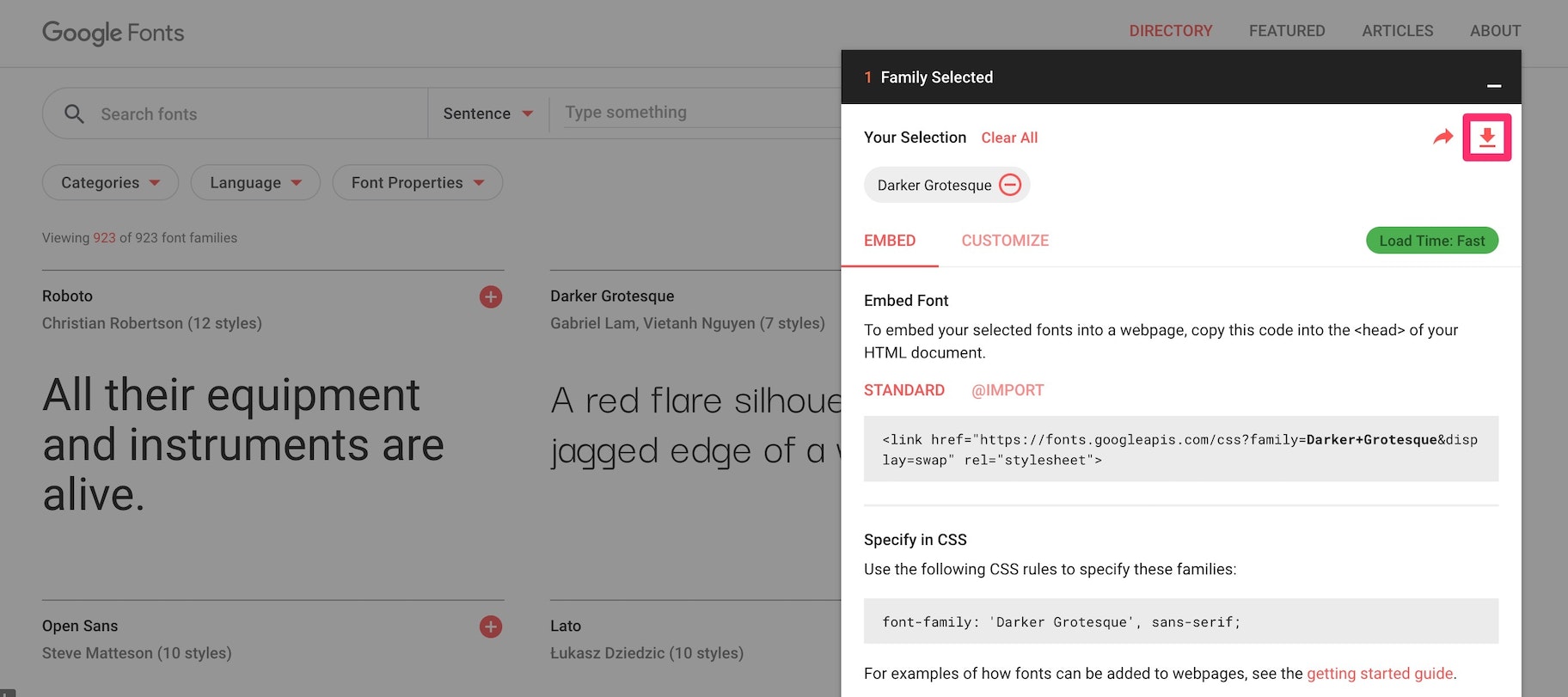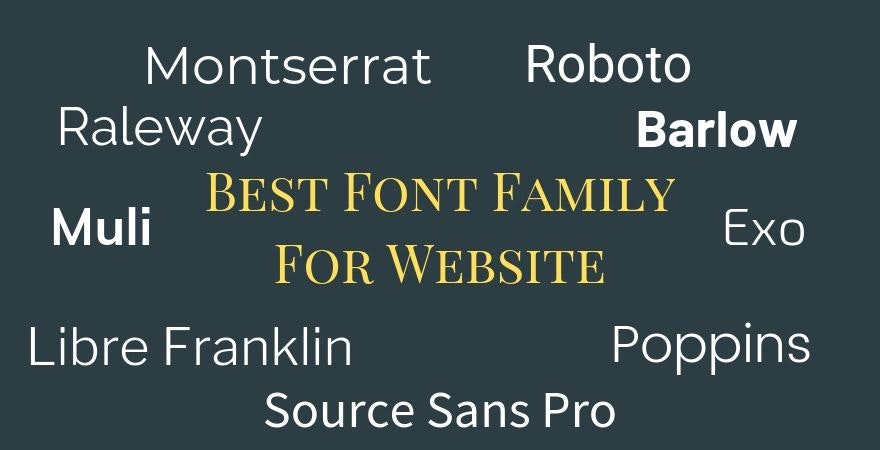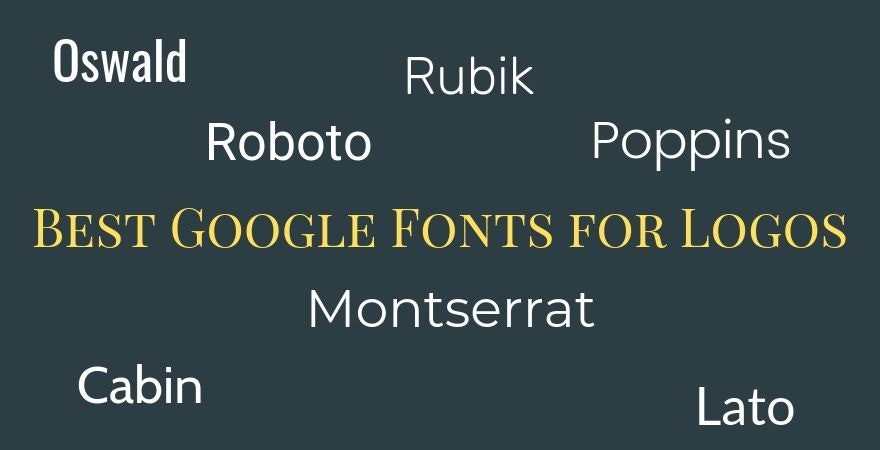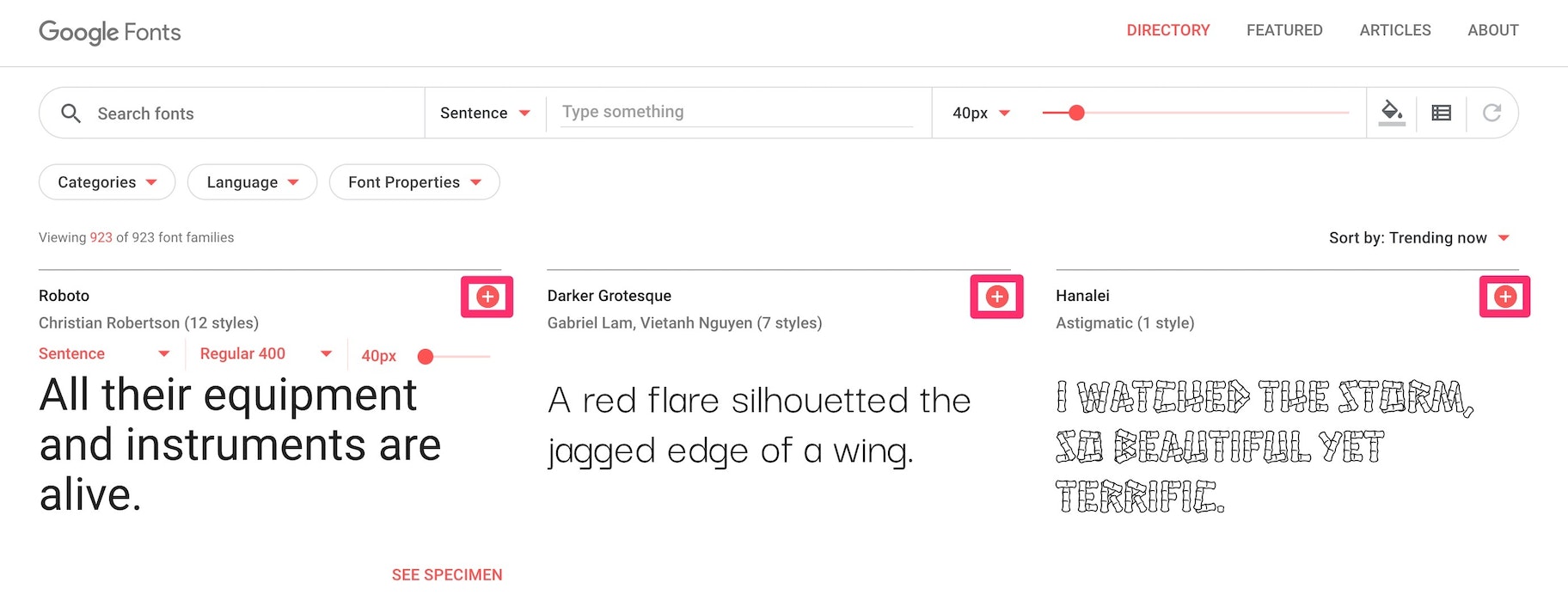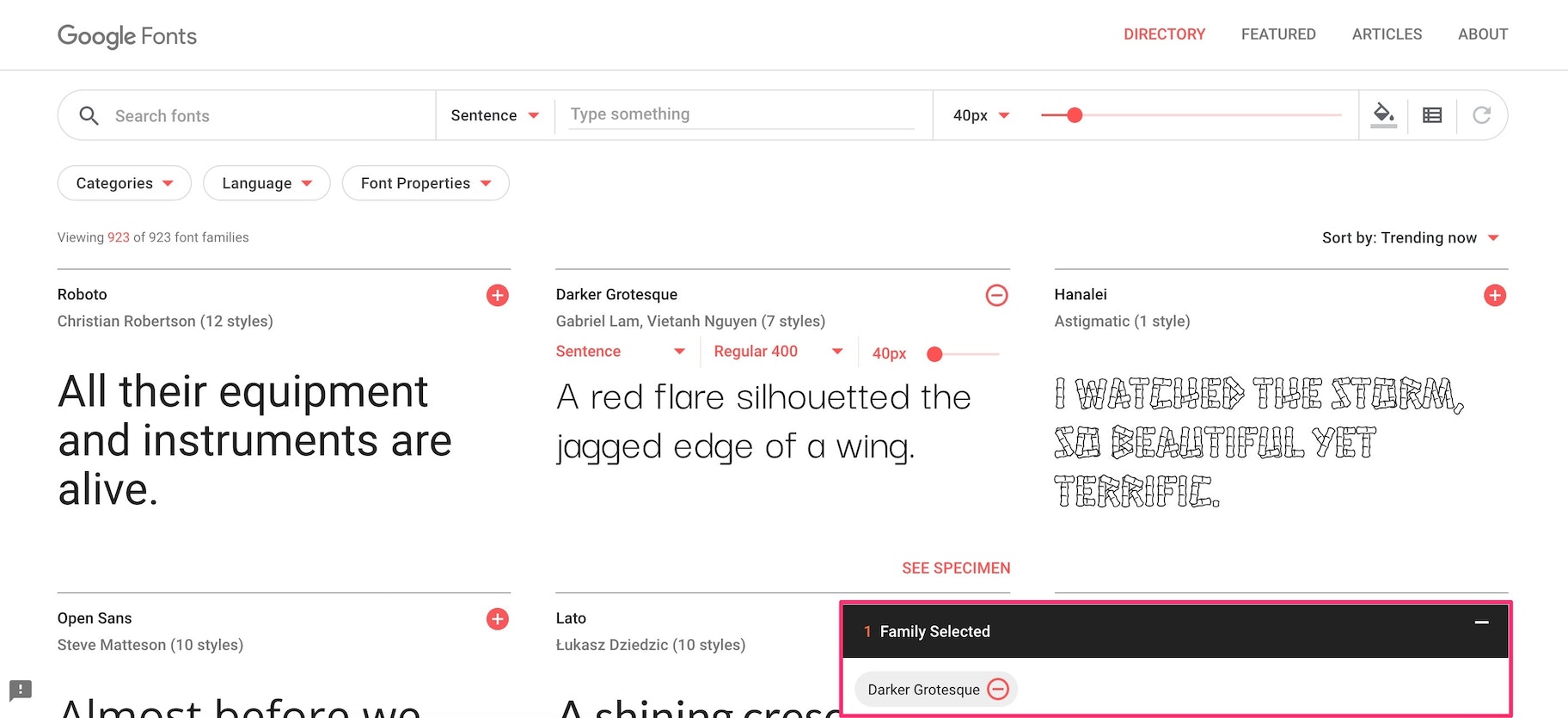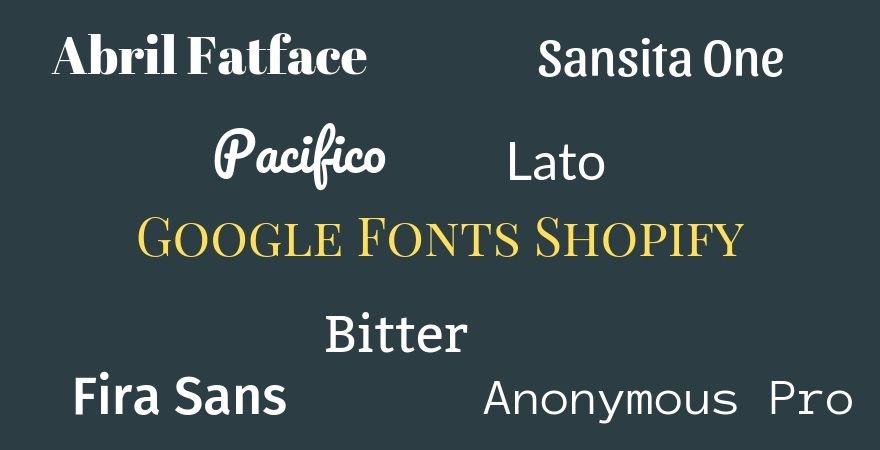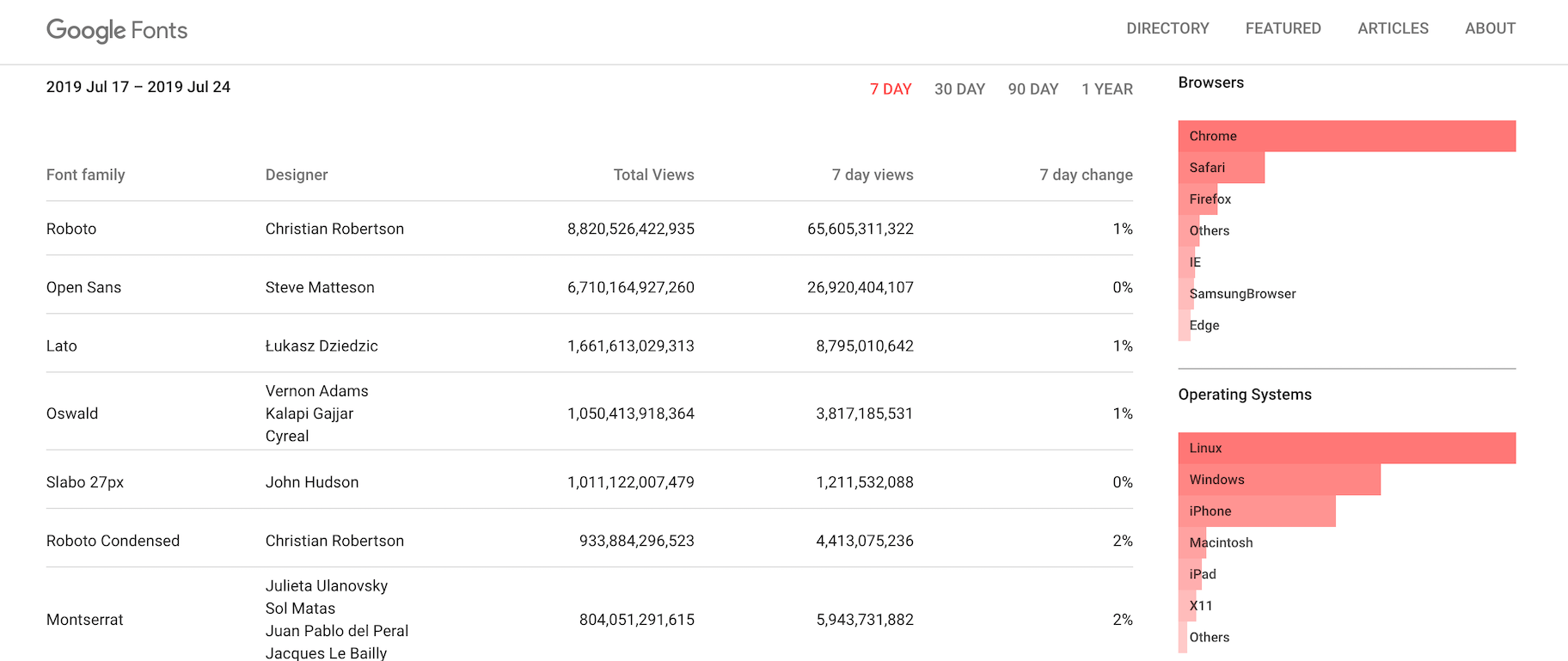
Google Fonts are one of the most popular typeface fonts you’ll find online. If you’re currently running an online Shopify store you’ll know that you’re using Google Fonts on your website. Google web fonts are often the standard fonts examples used by popular brands like Canva. Whether you’re looking for the best Google font combinations or need help finding handwriting Google Fonts, this article breaks down the best web fonts you can use for your website or design work.
What are Google Fonts?
Google Fonts are a typography library created by Google with over 1,500 licensed fonts that can be used for business or personal purposes for free. They can be used on your website, on design work, for a school assignment, on products, and more.
How to Choose Google Fonts
Several factors can help you decide on which Google Font to choose. When it comes to choosing a web font to use, you should consider readability, purpose, Google font combinations, popularity, and intuition. Here are a few ideas to help you better understand which fonts you should use in different situations:
1. Readability
If you’re composing a book, blog content, or anything text-heavy you should consider choosing a serif font. A serif font is one where it appears like the letters have “feet.” These feet connect the letters closer together which helps make them easier to read. If you look at sans serif fonts, they don’t have these feet-like extensions, which makes it slightly more difficult to read longer passages.
2. Purpose
When it comes to choosing a font, it can boil down to the purpose it’s being used for. For example, you might use Google Fonts handwriting font when it comes to wedding invitations as it’s customary to use cursive fonts in that setting. You might choose a more formal font like Helveticish for your resume since it’ll create a cleaner look. If you’re using a funkier font like ABYS, it’ll be to highlight a word or two in a design rather than for something more text-heavy. You want to choose a Google font that’s appropriate for the design, context, and industry you’re using the font for.
3. Best Google Font Combinations
We’ll share some Google Font combinations later on in this article. However, when choosing a pair of fonts, you should consider how complementary they are to one another. You might pair a modern sans serif title with a serif body text.
Fine stroke fonts work well as titles and pair well with readable serif body fonts to create a clean and easy to read look.
A bolded serif Google font can pair with a popular sans serif font for text light copy.
4. Use Popular Fonts
With over 900 fonts, you might think that any of them could work on any occasion. However, most designers will often resort to the same few number of fonts that work well for most designs. For example, when creating pins on Pinterest, I noticed that the Google font Playfair Display works well at compelling clicks when it’s italicized. I’ve tried several other fonts on the platform but my best-performing pins always come from that same Google font. With experience, you’ll start to select your top few fonts too. It’s okay to use the same Google Fonts frequently. If it works, don’t be afraid to keep using it.
5. Go With Your Gut
Sometimes a font seems right and other times it seems off. While some of the rules above can help you determine the right font, there are just too many Google Fonts to create perfect rules for. At times, you’ll need to experiment and play around with the font selections to see what looks best. If you understand the standard graphic design principles and elements, you’ll have a better idea of which font works best when working on a whole design.
Why Google Fonts Are Important
Google Fonts are important because they allow you to communicate different tones and brand personalities using typography. The fact that there are over 900 free Google web fonts allows businesses on a budget to use different typography without needing to pay for licenses for new fonts.
50+ Google Fonts to Use in 2024
Best Google Fonts
- Roboto
- Open Sans
- Lato
- Oswald
- Slabo 27 px
- Roboto Condensed
- Montserrat
- Source Sans Pro
- Raleway
- PT Sans
Google Fonts List
There are currently 1,527 Google Fonts. Here are a few on the Google Fonts list:
- Playfair Display
- Bitter
- Libre Baskerville
- Archivo Narrow
- Alegreya Sans
- Ubuntu
- Crimson Text
- Heebo
- Cabin
- Lobster
Free Google Fonts
- Pacifico
- Abril Fatface
- Barlow
- Bree Serif
- Bonbon
- Ropa Sans
- Amiri
- Orbitron
- Zilla Slab
- Great Vibes
Best Font for Website
- Playfair Display
- Cantata One
- Roboto Slab
- Cardo
- Montserrat
- Poppins
- Merriweather
- Lora
- Domine
- Karla
Best Serif Google Fonts